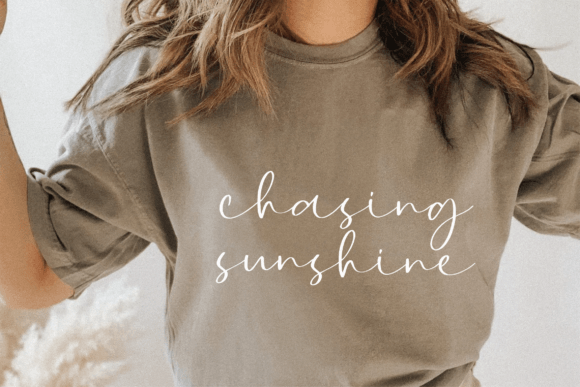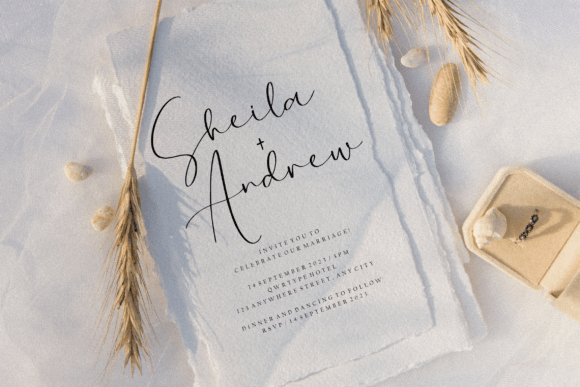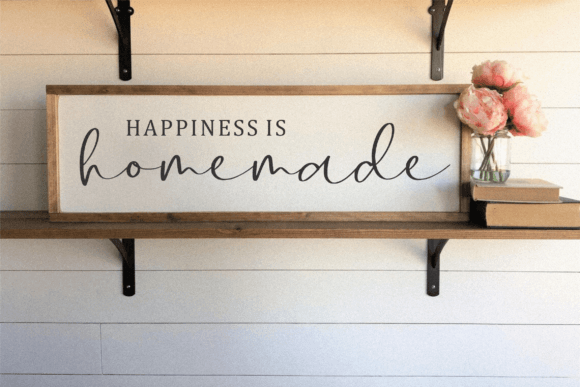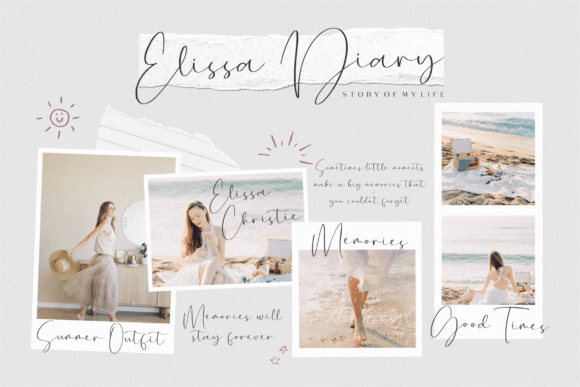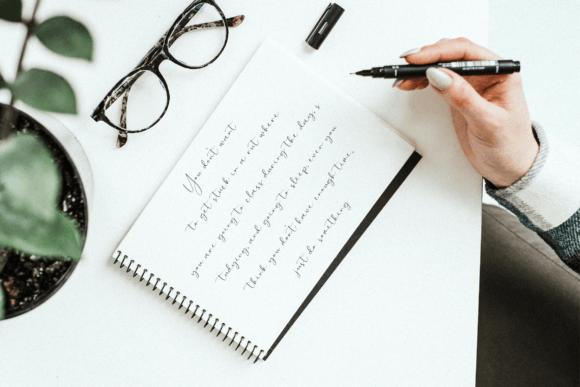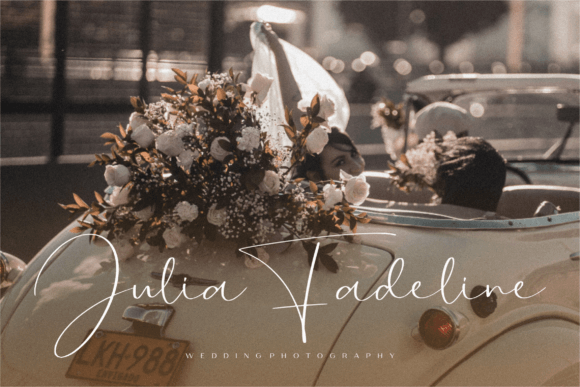
Introducing Bridescript Font: The Perfect Blend of Elegance and Modernity
Are you a designer or crafter looking for a font that exudes elegance, sophistication, and a touch of modernity? Look no further than Bridescript Font. This exquisite handwritten font is masterfully designed to become a true favorite among designers and crafters alike. With its classy calligraphic influences and fresh, contemporary feel, Bridescript is the perfect choice for projects that require a high level of refinement and style.
The Inspiration Behind Bridescript
Bridescript Font is inspired by the art of calligraphy, with its flowing lines, delicate strokes, and elegant letterforms. The font’s creator aimed to capture the essence of traditional calligraphy while infusing it with a modern twist. The result is a font that feels both timeless and trendy, making it suitable for a wide range of design projects.
Key Features of Bridescript Font
So, what makes Bridescript Font so special? Here are some of its key features:
- Handwritten elegance: Bridescript Font boasts a beautiful, handwritten aesthetic that adds a touch of warmth and personality to any design project.
- Classy calligraphic influences: The font’s calligraphic roots are evident in its flowing lines, delicate strokes, and elegant letterforms.
- Contemporary feel: Despite its classic influences, Bridescript Font feels fresh and modern, making it perfect for designers and crafters who want to create something new and exciting.
- Versatility: Bridescript Font is suitable for a wide range of design projects, from wedding invitations and stationery to branding, packaging, and digital media.
Uses for Bridescript Font
Bridescript Font is an incredibly versatile font that can be used for a variety of design projects, including:
- Wedding invitations and stationery: Bridescript Font is perfect for creating beautiful, elegant wedding invitations, save-the-date cards, and other stationery items.
- Branding and packaging: The font’s modern, sophisticated feel makes it an excellent choice for branding and packaging projects, particularly for luxury brands or products.
- Digital media: Bridescript Font can be used for digital media, such as social media graphics, blog headers, and website designs.
- Crafting and DIY projects: Crafters and DIY enthusiasts can use Bridescript Font to add a touch of elegance to their projects, such as handmade cards, gift tags, and scrapbooking pages.
Tips for Using Bridescript Font
To get the most out of Bridescript Font, here are some tips to keep in mind:
- Pair it with complementary fonts: Bridescript Font pairs beautifully with clean, sans-serif fonts, such as Arial or Helvetica.
- Experiment with colors: The font’s elegant feel makes it suitable for a wide range of colors, from soft pastels to rich jewel tones.
- Use it for headlines and titles: Bridescript Font is perfect for headlines and titles, where its elegant, cursive feel can really shine.
In conclusion, Bridescript Font is an exquisite handwritten font that offers the perfect blend of elegance, sophistication, and modernity. With its classy calligraphic influences, fresh feel, and versatility, it’s an excellent choice for designers and crafters looking to add a touch of refinement to their projects. Whether you’re working on a wedding invitation, branding project, or digital media design, Bridescript Font is sure to impress.